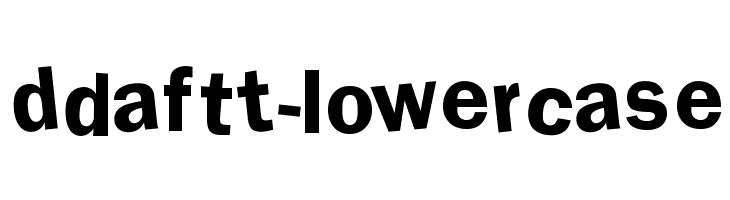
A bold, brush-style font with an expressive and dynamic appearance.
A whimsical, hand-drawn font with a vintage charm and artistic flair.
A bold, textured, hand-drawn font with a chalk-like appearance.
A bold, hand-painted style font with textured brushstroke effects.
An ornate and artistic font with elaborate swirls and flourishes.
A playful, bold handwritten font with a whimsical and friendly style.
A bold, distressed font with a rebellious, hand-painted style.
A bold, distressed font with a gritty, hand-painted style.
A grungy, distressed font with a hand-painted, chaotic style.
A hand-drawn, playful font with tall, slender letters and varying stroke widths.
A modern, geometric font with clean lines and circular elements.
A playful, spooky font with bold, irregular letterforms and thematic elements.
A bold, grungy font with jagged edges and a chaotic, hand-drawn style.
A bold, hand-painted style font with a textured, artistic appearance.
A bold, expressive handwritten font with dynamic curves and decorative elements.
A decorative and whimsical font with intricate, hand-drawn elements.
A dynamic, cursive font with fluid, interconnected strokes and an expressive style.
A decorative font with whimsical swirls and butterfly embellishments.
A distressed, graffiti-inspired font with a raw, edgy aesthetic.
A raw, hand-drawn font with brush-like strokes and gothic elements.
A bold, geometric font with angular lines and a modern-retro aesthetic.
A playful, handwritten font with quirky, narrow letters and whimsical elements.
A geometric, Art Deco-inspired font with sleek, angular lines.
A playful, hand-drawn font with tall, narrow letters and artistic flair.
A bold, decorative font with a vintage, textured style.